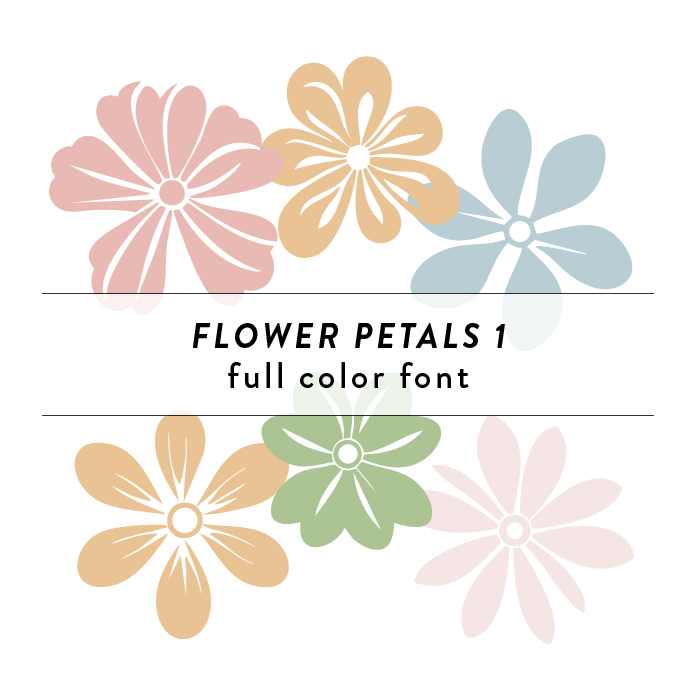
Flowers Petals 1 Full Color Font is a charming and whimsical font design inspired by flowers, trees, branches, and leaves. This unique font features intricate details and vibrant colors, perfect for adding a touch of nature to any creative project. Its playful style is ideal for invitations, greeting cards, and other craft projects that call for a fun and organic aesthetic. This font is a OTF craft font that will appear in color only when used with the silhouette software.